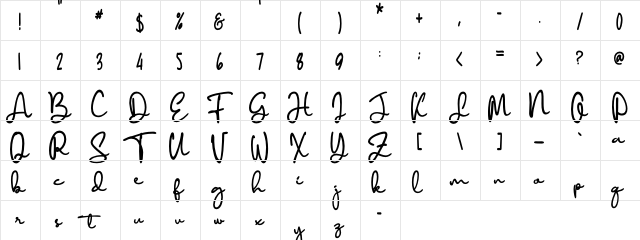
Diamant handwriting Regular
Design Context for Diamant handwriting Typeface
Diamant handwriting flows with the natural rhythm of handwritten lettering, making it ideal for designs that call for warmth and personal expression.
Font Pairing: Combine Diamant handwriting with a simple geometric sans for maximum contrast — the tension between flowing curves and clean structure is a classic typographic pairing.
Pro Tip: Pair Diamant handwriting with a clean sans-serif for supporting text. The contrast between fluid script and geometric structure creates an elegant typographic hierarchy.